21 Vibrant Color Fonts to Elevate Your Creative Design Projects
In the world of modern graphic production, adding depth and visual impact is essential. If you are looking to make your work pop, exploring Color Fonts is the ultimate way to bring personality to your creative design concepts. These innovative typefaces eliminate the need for complex layer styles, allowing you to achieve stunning, multicolored results instantly. Beyond these, you might also want to explore our collections of Display Fonts and Script Fonts to add even more variety to your library.
Why You Should Use Color Fonts for Creative Design
Incorporating these dynamic assets into your workflow allows for unparalleled artistic expression. Unlike traditional typefaces, these styles come with built-in textures, gradients, and hues that make your creative design work stand out from the crowd. Whether you are crafting branding for a startup or festive invitations, these tools offer a professional yet playful aesthetic that captures attention immediately.
Summer Color Font
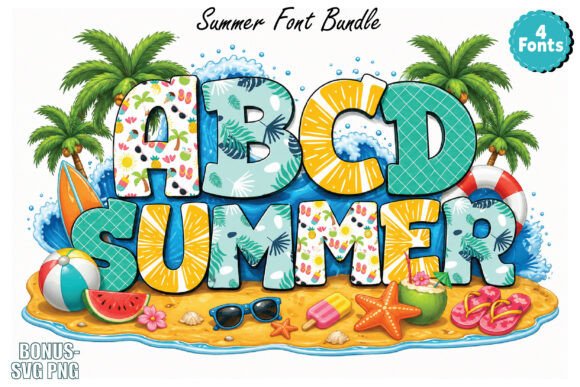
This delightful lettering style is perfect for crafting eye-catching visuals from posters to branding. It infuses your projects with a playful and sunny aesthetic, making it a staple for any seasonal creative design.
Bubblio Glaze Color Font
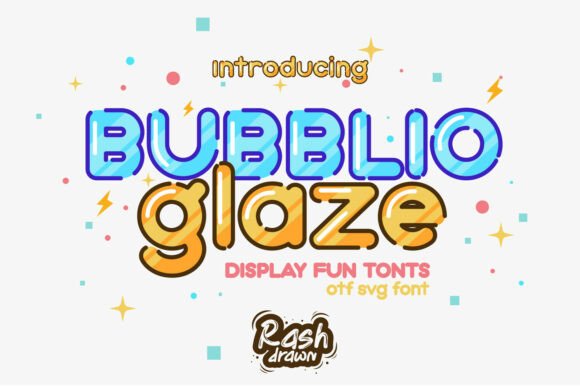
Featuring a 3D bubble aesthetic, this typeface is ideal for headlines and whimsical displays. Its glossy, volumetric texture brings a modern touch to any layout.
Picado Color Font
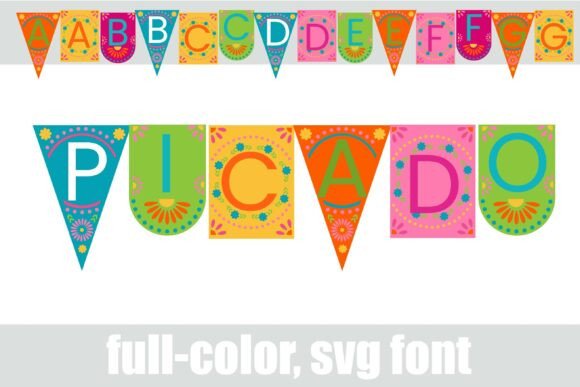
Inspired by traditional Mexican paper art, this vibrant typeface is perfect for invitations and product packaging. It adds an authentic, lively atmosphere to your work.
Marvel Mexico Color Font
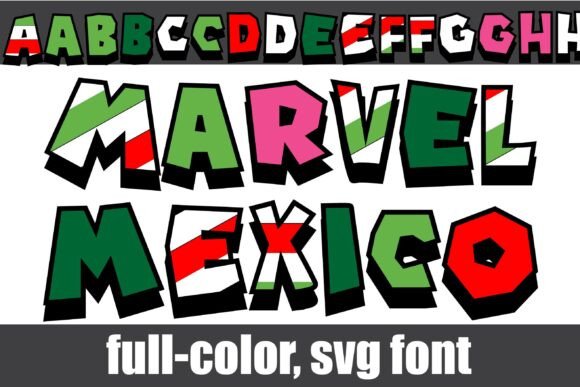
This striking style captures the vibrant spirit of Mexican heritage. It is an excellent choice for eye-catching posters and thematic packaging designs.
Cinco de Mayo Color Font
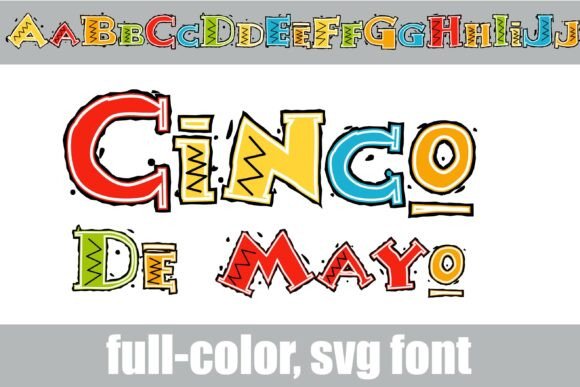
Expertly crafted for a spirited flair, this font brings a festive touch to event posters and creative party decorations.
Bubble Gloss Color Font
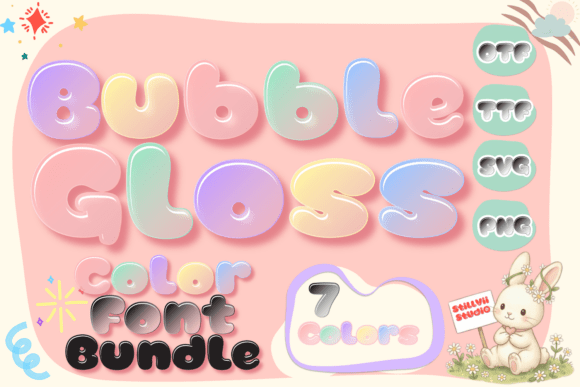
This typeface offers a glossy bubble effect perfect for kids’ designs. Its 3D texture provides a professional look without requiring extra post-processing.
Toon Spring Color Font
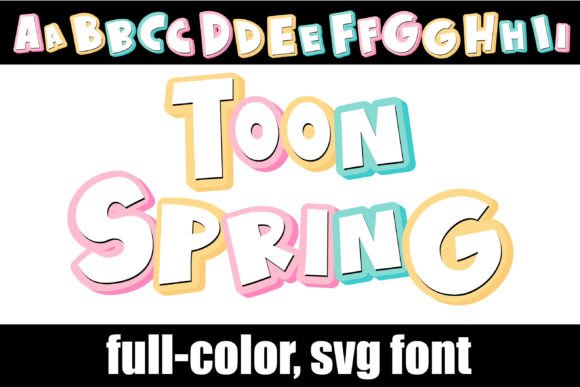
Perfect for comic book designs and fun branding, its dynamic shapes and saturated hues infuse cheerful energy into any layout.
Spring Tiles Color Font
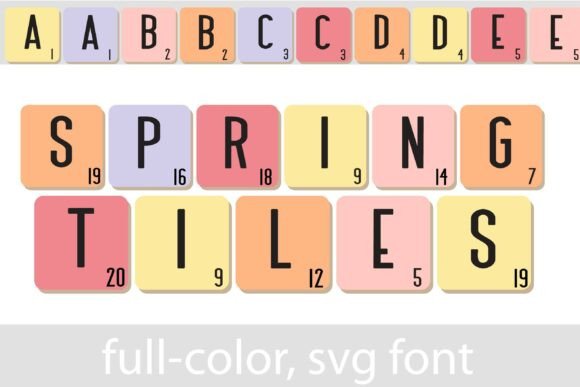
This geometric mosaic font is ideal for modern, vibrant headlines. Use it to add unique visual flair to your seasonal creative projects.
Toad-ally Spring Color Font
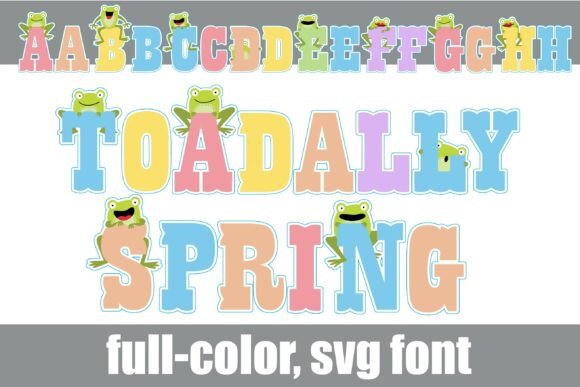
A charming doodle-style typeface that adds playfulness to invitations and children’s projects, standing out on any background.
Iconic Garden Color Font
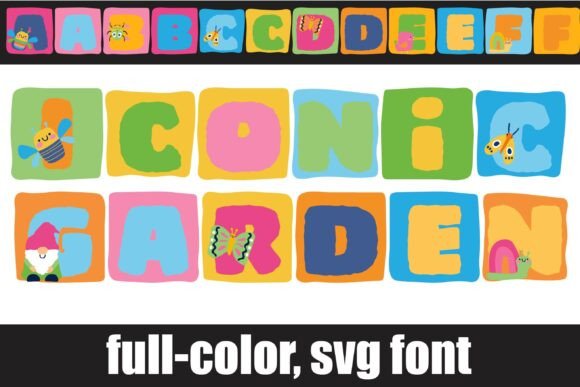
Featuring sophisticated botanical motifs, this typeface is perfect for greeting cards and stylish packaging, adding artistic depth to your work.
Pastel Mosaic Font Bundle Color Font
This bundle offers a delicate mosaic texture, ideal for children’s designs and branding that requires a unique, artistic touch.
Popper Sparkle Color Font
Bring dynamic sparkle to children’s illustrations and eye-catching headlines with this playful and vivid style.
Lobster 2 Color Font
While not a typical multicolored file, its fluid curves and dynamic script style are excellent choices for vibrant and high-impact graphic design projects.
Knock Work Color Font
Bringing a vintage industrial aesthetic to branding, this pre-distressed, textured typeface ensures your headlines stand out professionally.
Cinco De Mayo Color Font
This version of our festive collection injects authentic Mexican flair into posters and thematic illustrations with its bold, energetic palette.
Chromatix Color Font
Innovative and multi-layered, this style adds intense depth and is perfect for merchandise and striking promotional materials.
Cinco De Mayo Color Font
Capture the lively spirit of a fiesta with this version, specifically curated for event invitations and thematic party decor.
Arcade Blast Color Font
Ideal for nostalgic 80s-inspired gaming titles, this high-energy typeface commands attention in streaming graphics and cover designs.
Pink Bow Lace Color Font
Featuring a charming lace pattern, this style is perfect for romantic designs and greeting cards, turning standard text into a visual masterpiece.
AM Autism Color Font